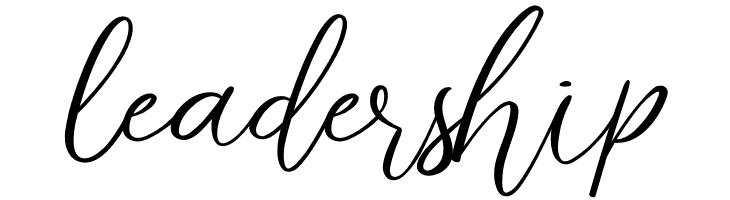
• Angelina Rahmy
A graceful script font with fluid, cursive strokes and a sophisticated style.
• Angelina Rahmy
A flowing, cursive script font with elegant, connected characters.
• Angelinas
A modern, elegant script font with flowing, cursive strokes.
• Angelinas
A cursive, handwritten font with elegant, flowing strokes.
• Angelinatta Personal Use Only
A modern, elegant script font with flowing curves and sophisticated style.
• Angeline
A graceful script font with elegant loops and swirls.
• Angelinea
A sophisticated script font with elegant, flowing cursive letterforms.
• Angeliny Regular
An elegant script font with intricate swirls and flowing strokes.
• Angeliny Regular
An elegant script font with intricate swirls and decorative flourishes.
• Angelis Regular
A classic, elegant script font with flowing, cursive letterforms.
• Angelis-Regular
A flowing, cursive script with elegant, interconnected letters.
• Angelisa
A playful and elegant script font with flowing cursive design and decorative flourishes.
• Angelista - Personal Use
A cursive, elegant script font with interconnected letters and smooth strokes.
• Angelita
A sophisticated script font with elegant loops and swashes, perfect for decorative use.
• Angelitta
An elegant script font with flowing, cursive letters and decorative flourishes.